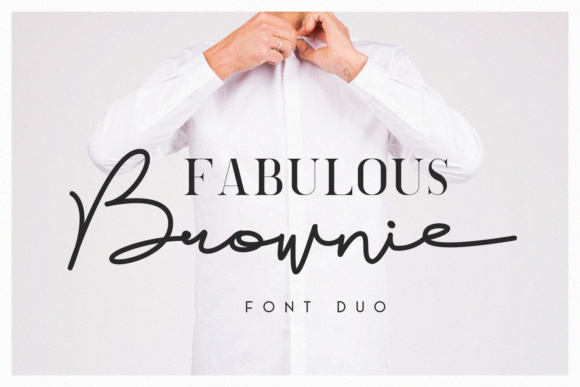
The Brownie Duo Font: A Perfect Harmony of Script and Serif
I’ll never forget the time I was working on a branding project for a trendy coffee shop. My client wanted a font that was both elegant and approachable, but I was struggling to find the perfect combination. That’s when I stumbled upon the Brownie Duo font, a classy, contemporary pair of script and serif fonts that instantly caught my eye. In this article, I’ll share my experience with the Brownie Duo font, its features, and how to make the most of it in your design projects.
So, what do I love about the Brownie Duo font? Here are a few things that make it stand out:
• ✨ Beautiful typographic harmony: The script and serif fonts work together seamlessly, creating a stunning visual combination that’s perfect for a variety of design projects.
• ✅ High-quality design: The font is meticulously crafted with attention to detail, ensuring a professional finish.
• ✅ Versatility: The Brownie Duo font is suitable for a range of applications, from logos and branding to packaging and digital media.
• 🤔 Limited multilingual support: While the Brownie Duo font covers the basics, it may not support all languages or special characters.
• ⚠️ Glyph limitations: Some users have reported issues with certain glyphs not displaying correctly in certain software.
The Designer Inspiration Behind the Brownie Duo Font
The Brownie Duo font was designed with the goal of creating a harmonious pair of script and serif fonts that would elevate design projects. While the designer’s exact inspiration may be unknown, it’s clear that the font was crafted with attention to detail and a passion for typography.
What is the Brownie Duo font? The Brownie Duo font is a classy, contemporary pair of script and serif fonts designed for a variety of design projects.
Does the Brownie Duo font support multilingual characters? While the Brownie Duo font covers the basics, it may not support all languages or special characters.